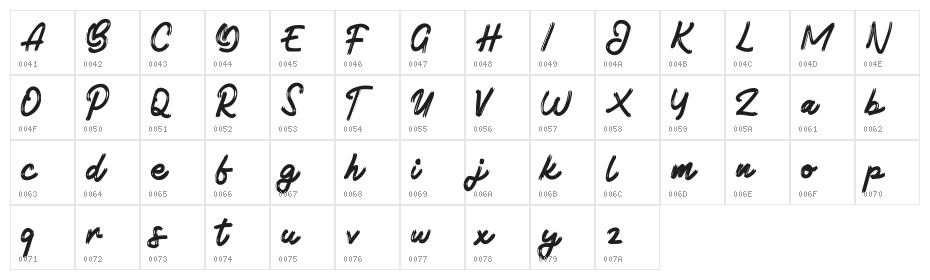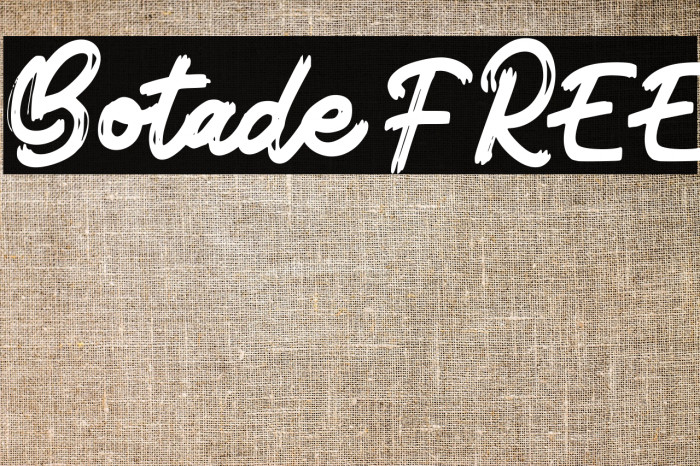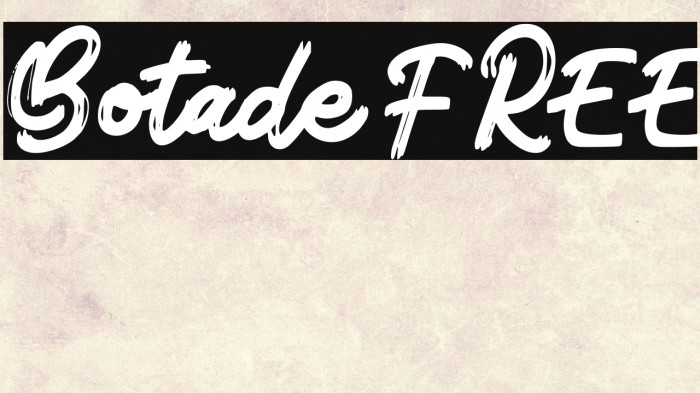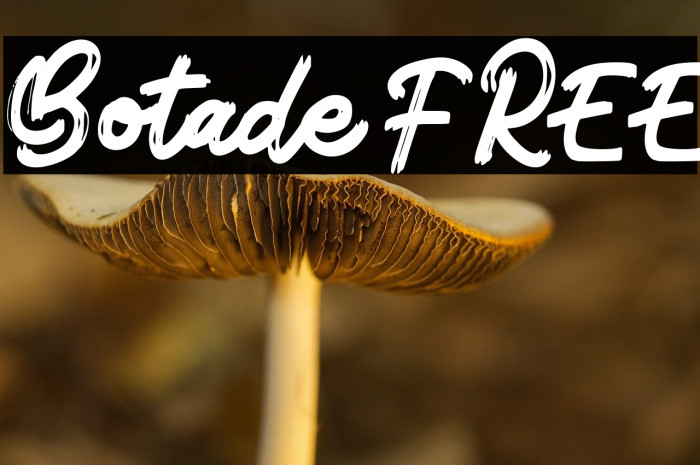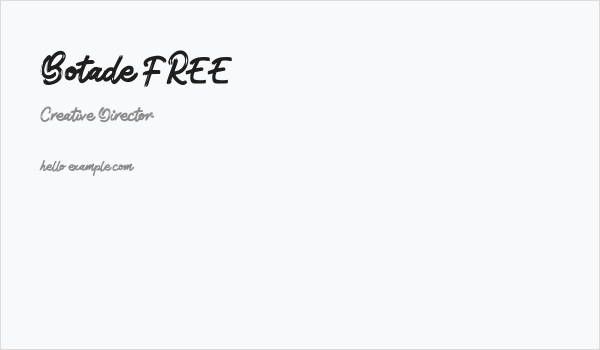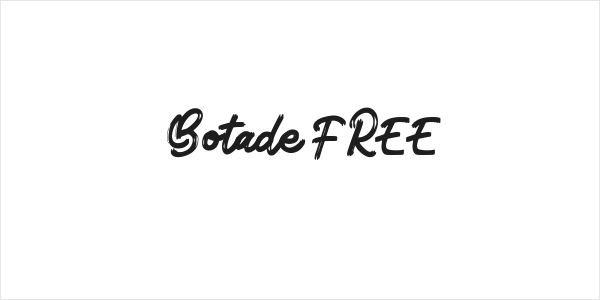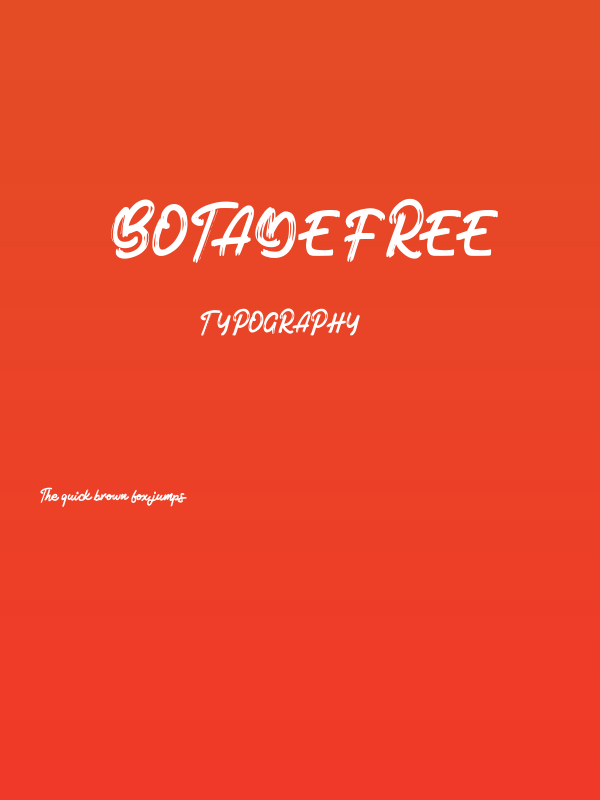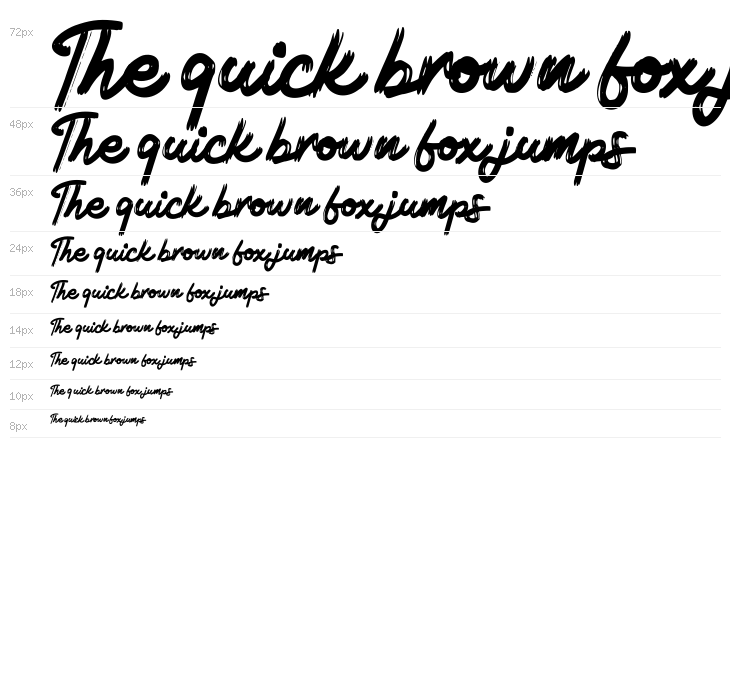
Botade FREE Font
Botade FREE Description
This font features a dynamic and expressive brush script style, characterized by its bold, sweeping strokes and energetic appearance. The letters are crafted with a sense of movement, giving them a lively and artistic flair. The uppercase and lowercase alphabets maintain a consistent flow, with some letters featuring unique swashes and flourishes that enhance their visual appeal. The numbers and special characters are equally expressive, maintaining the overall aesthetic of the font. This style is perfect for projects that require a bold and creative touch, such as branding, posters, or artistic designs.
| Use Case | Logos, Headlines, Artistic designs |
| Proposed Projects | Ideal for branding, posters, artistic designs, and any project needing a bold, creative touch. |